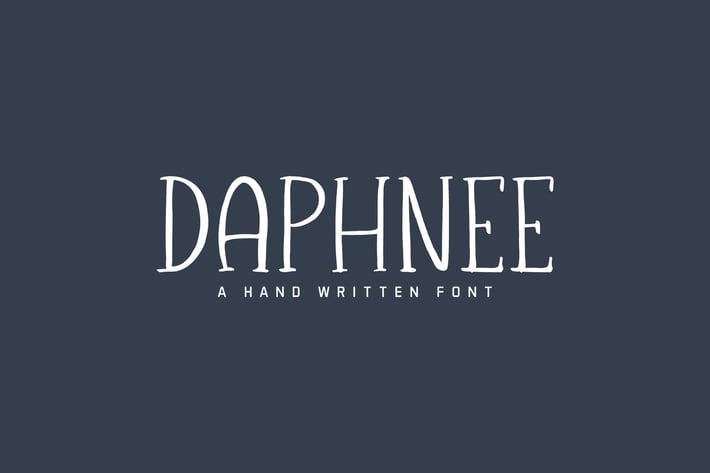
Daphnee Slab Serif Font
Daphnee is a sweet, creative and charming slab serif typeface which will be useful in your next projects and have fun with it. It contains complete basic glyphs with multilingual support. Daphnee will be perfect for packaging, presentations, logo, headlines, lettering, posters, branding, quotes, titles, magazines headings, web layouts, advertising, invitations, packaging design, books, and nearly any creative design.